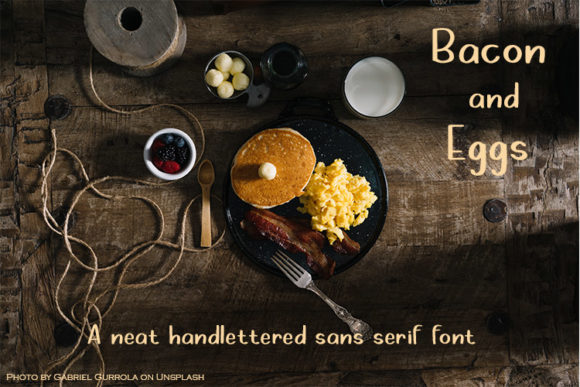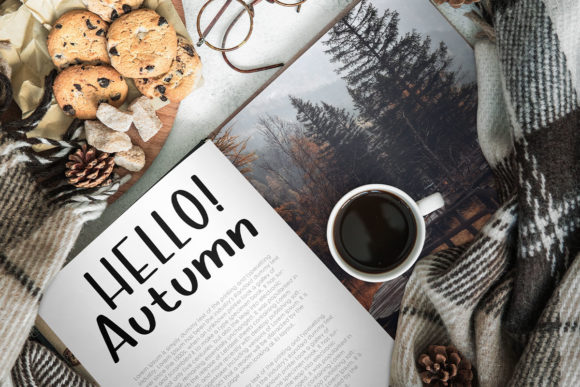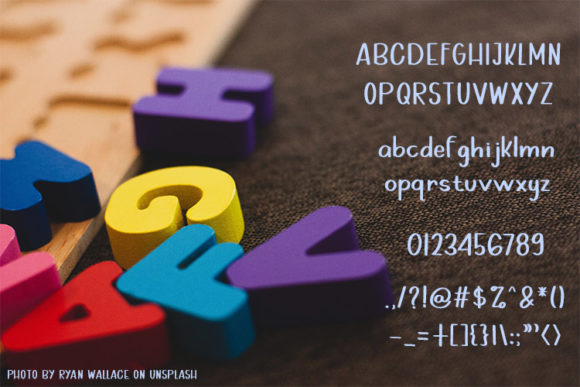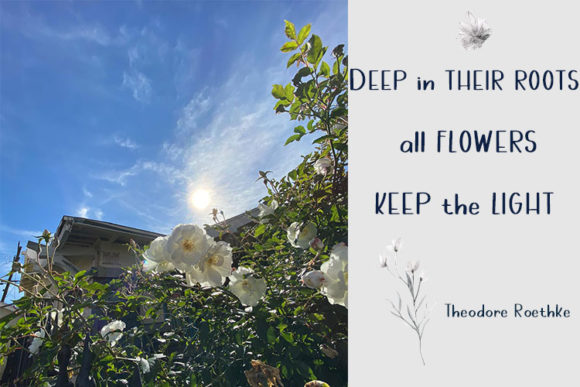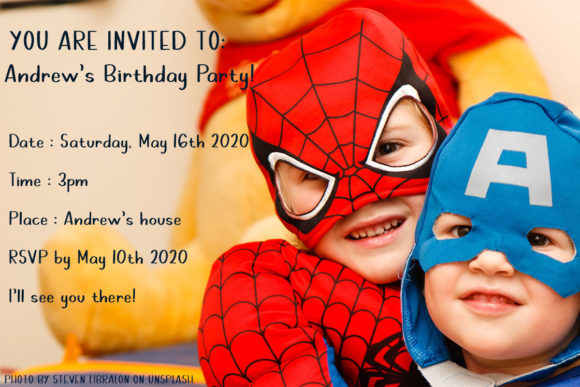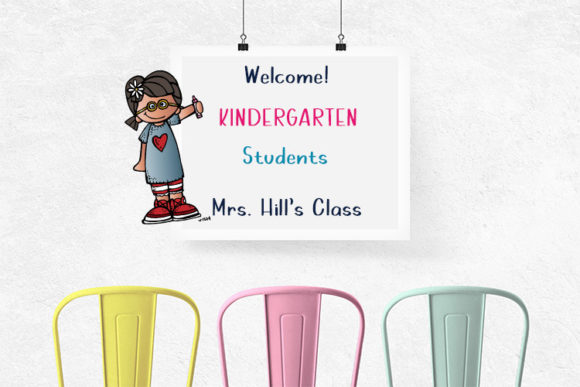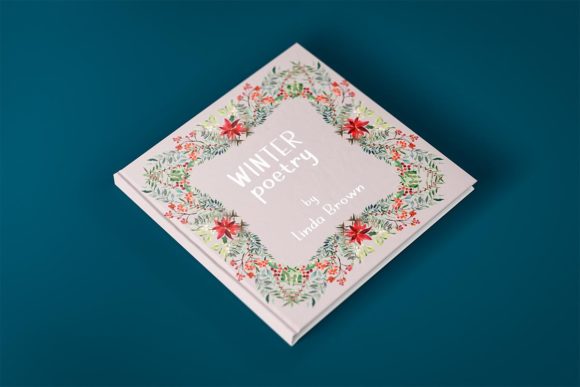
Bacon and Eggs Font
About Bacon and Eggs Font
Bacon and Eggs is a casual and cheerful handwritten font. Get creative with its unique playfulness, and use it to brighten up any crafting project!